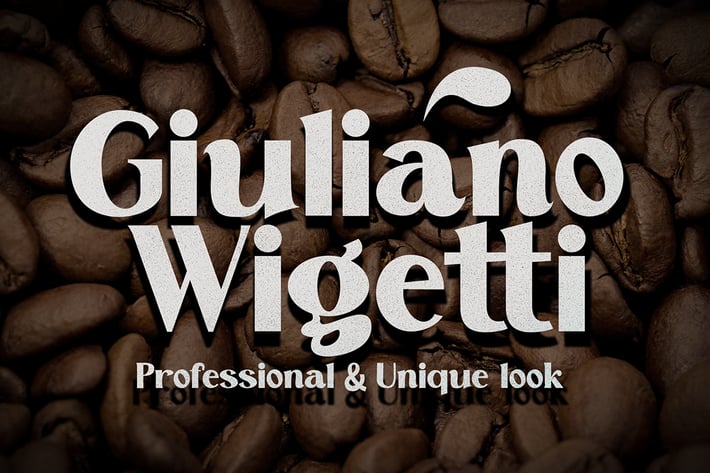
Giuliano Wigetti - Display Font
Introducing Giuliano Wigetti, an elegant, simple, and beauty display font. Its unique and lovely feel.
So perfect for you who needs a typeface for logo designs, magazine, social media, brochure, and many more.